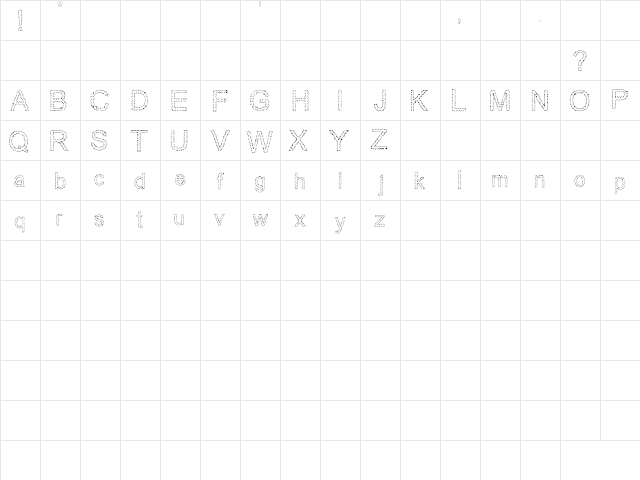
LS2020Vision Regular
Design Context for LS2020Vision Typeface
LS2020Vision is a composed and adaptable typeface that performs quietly and consistently across a wide range of design contexts.